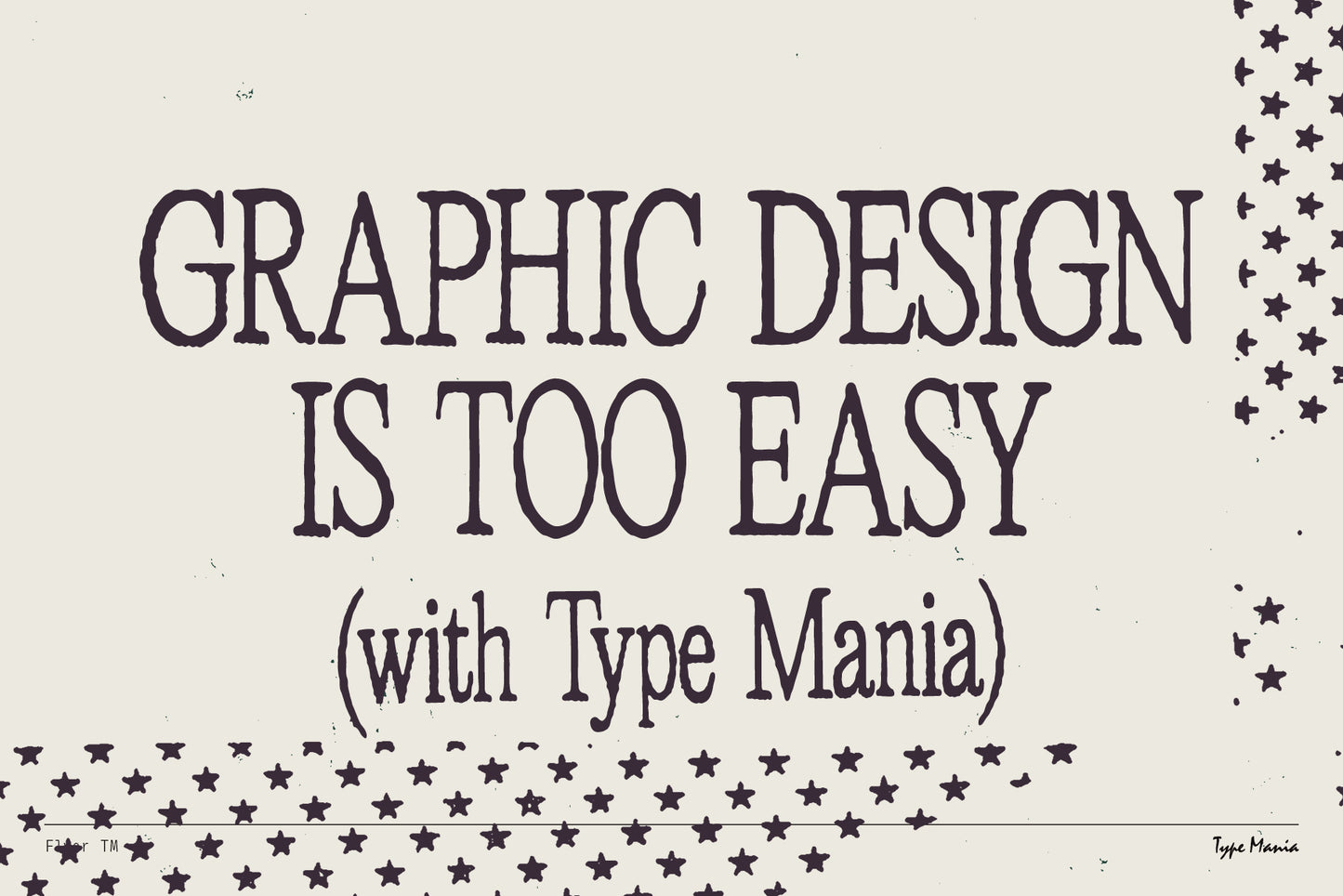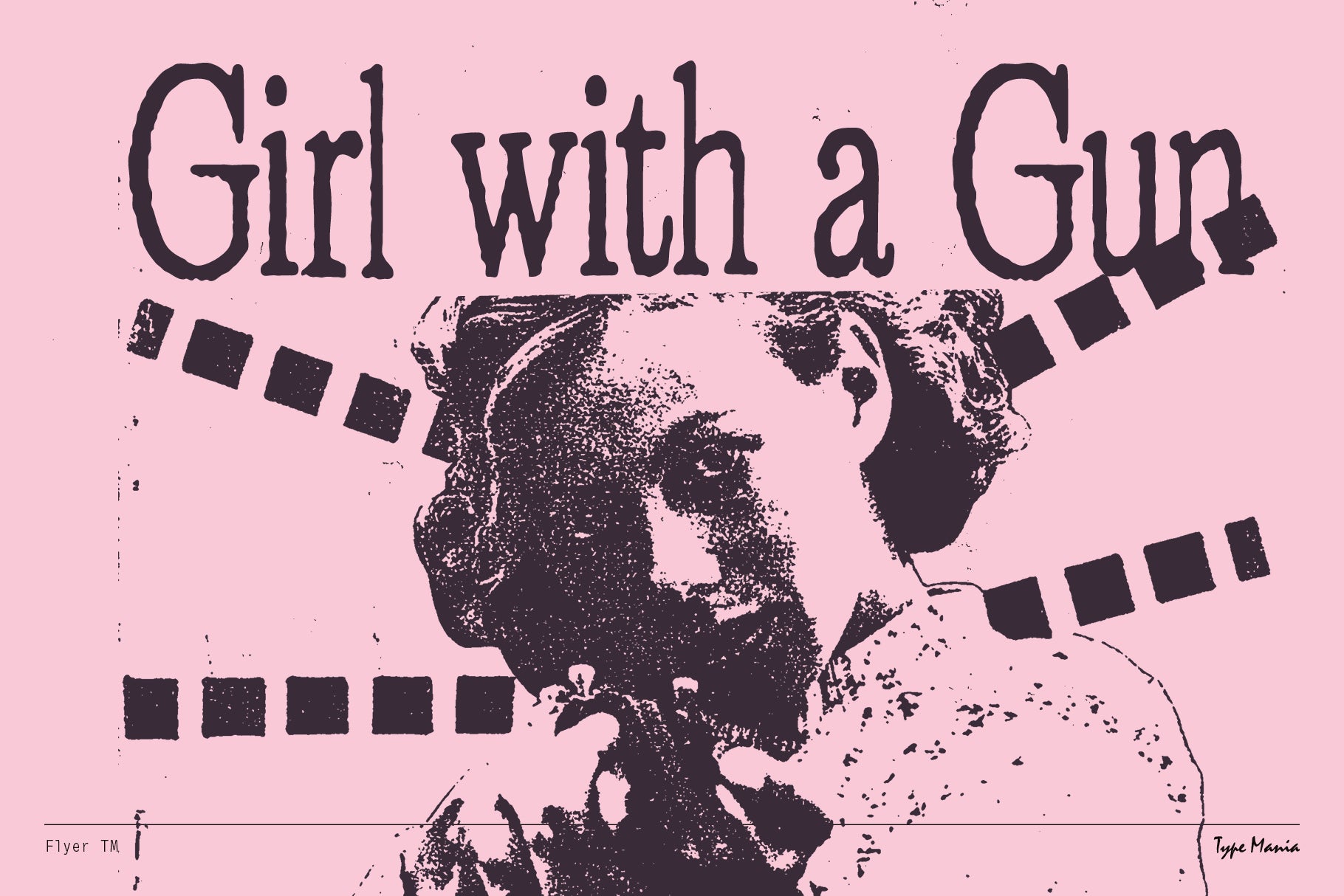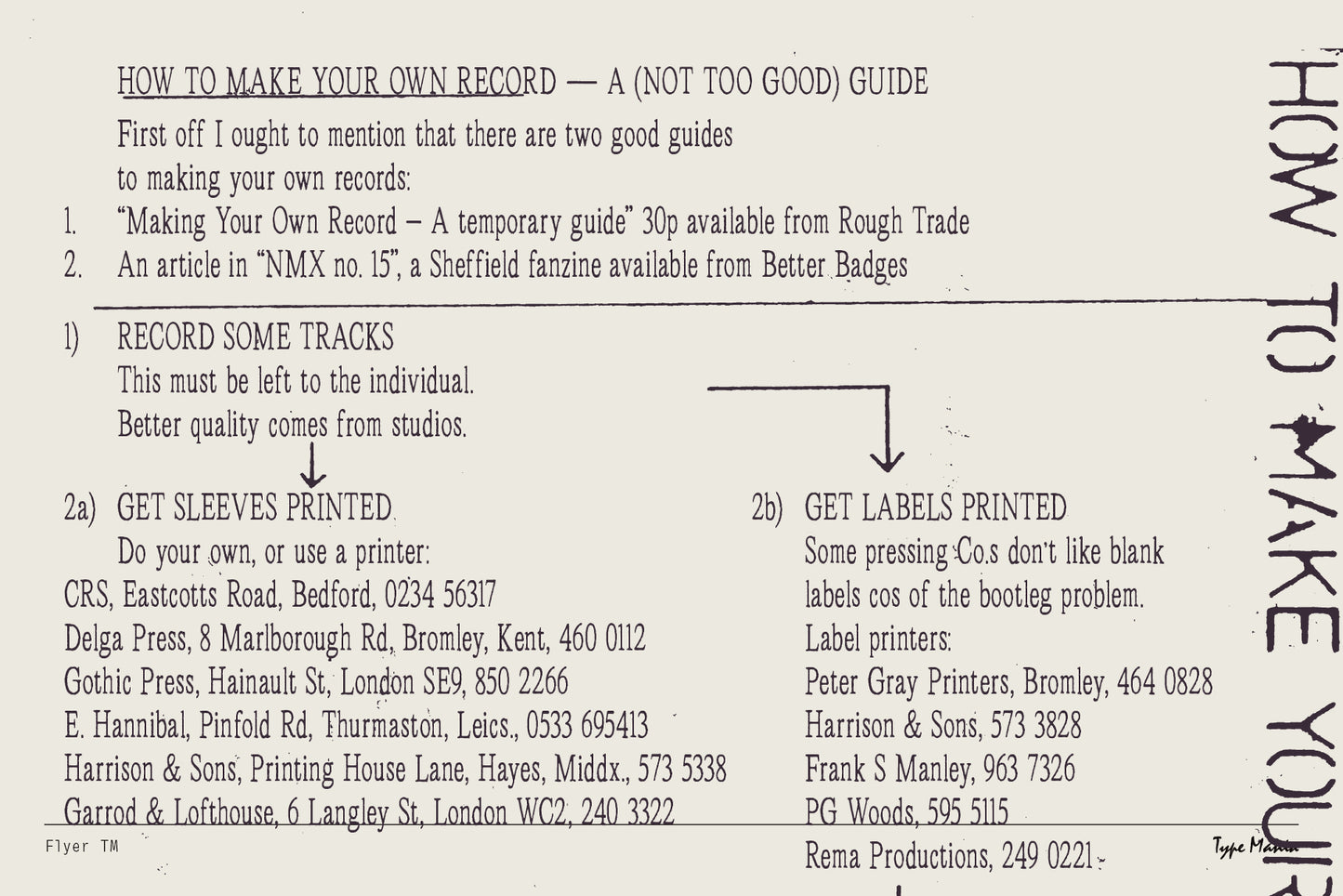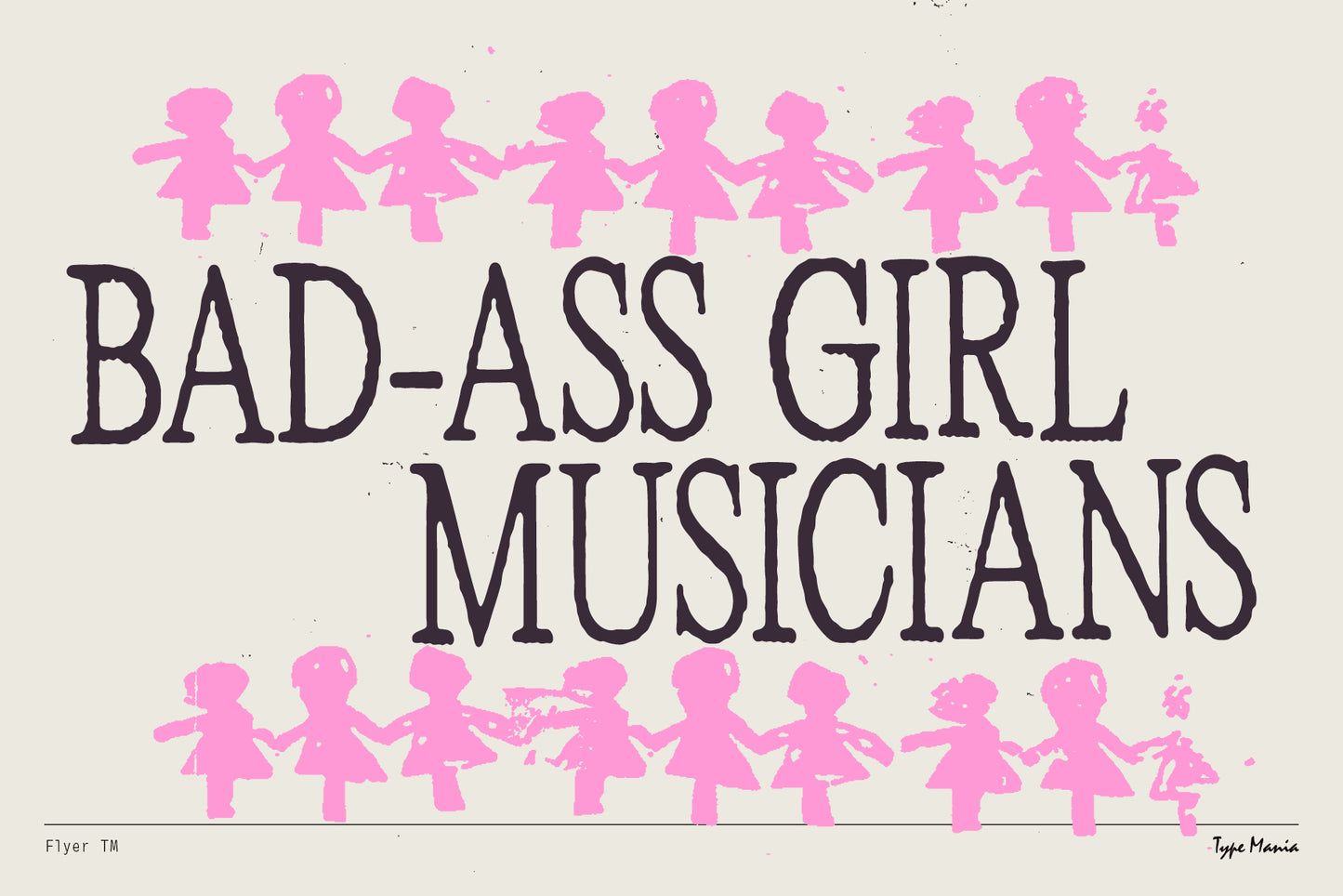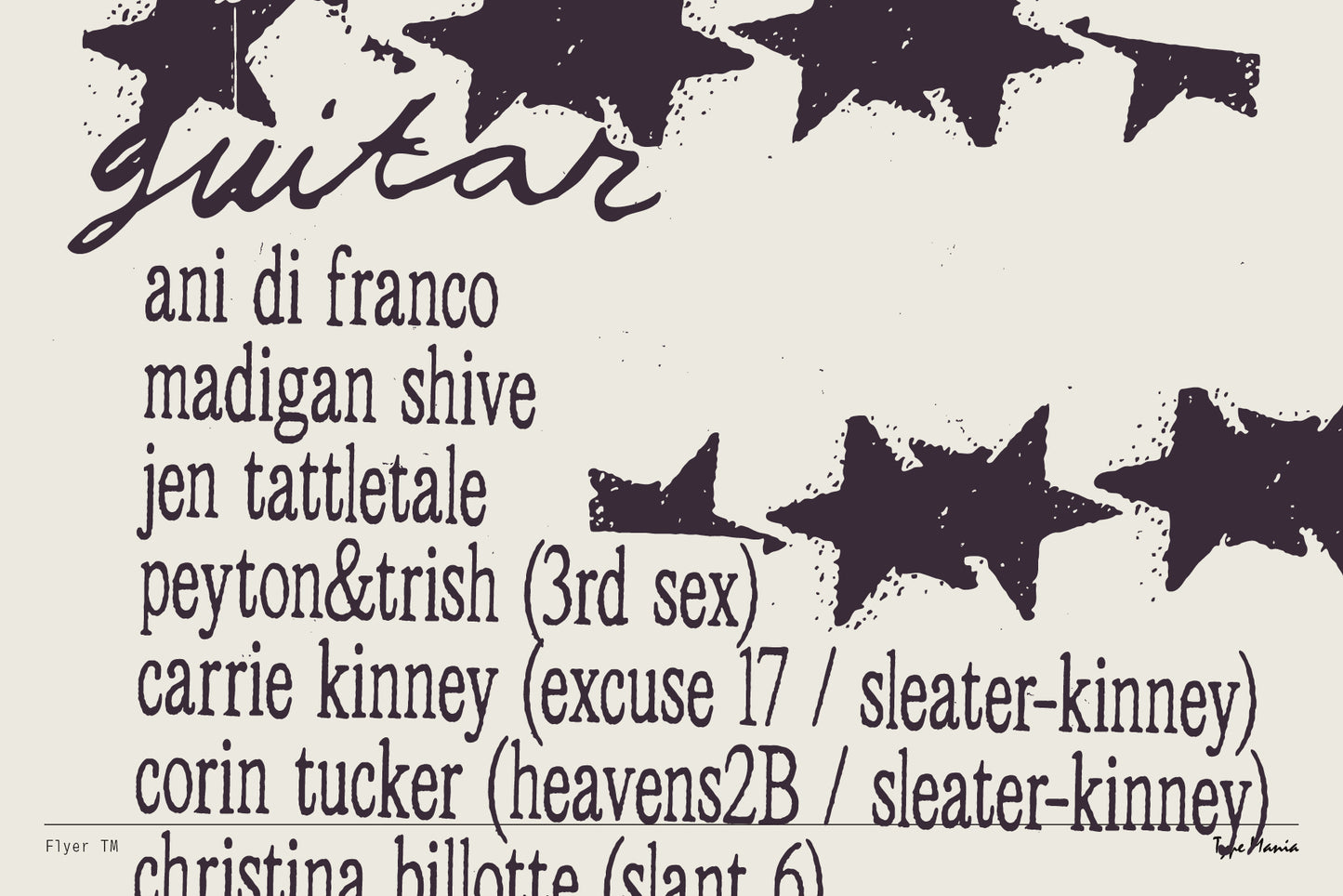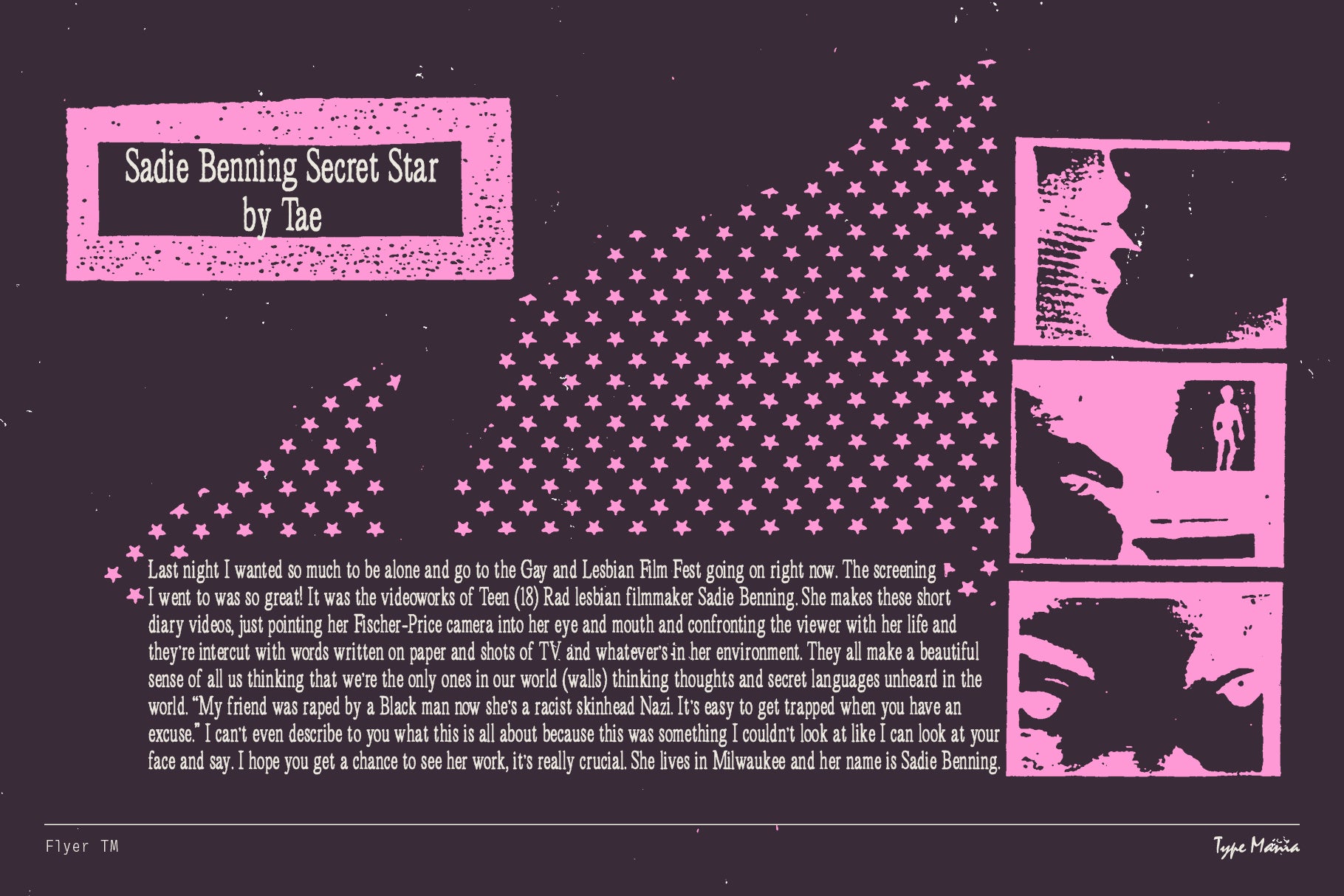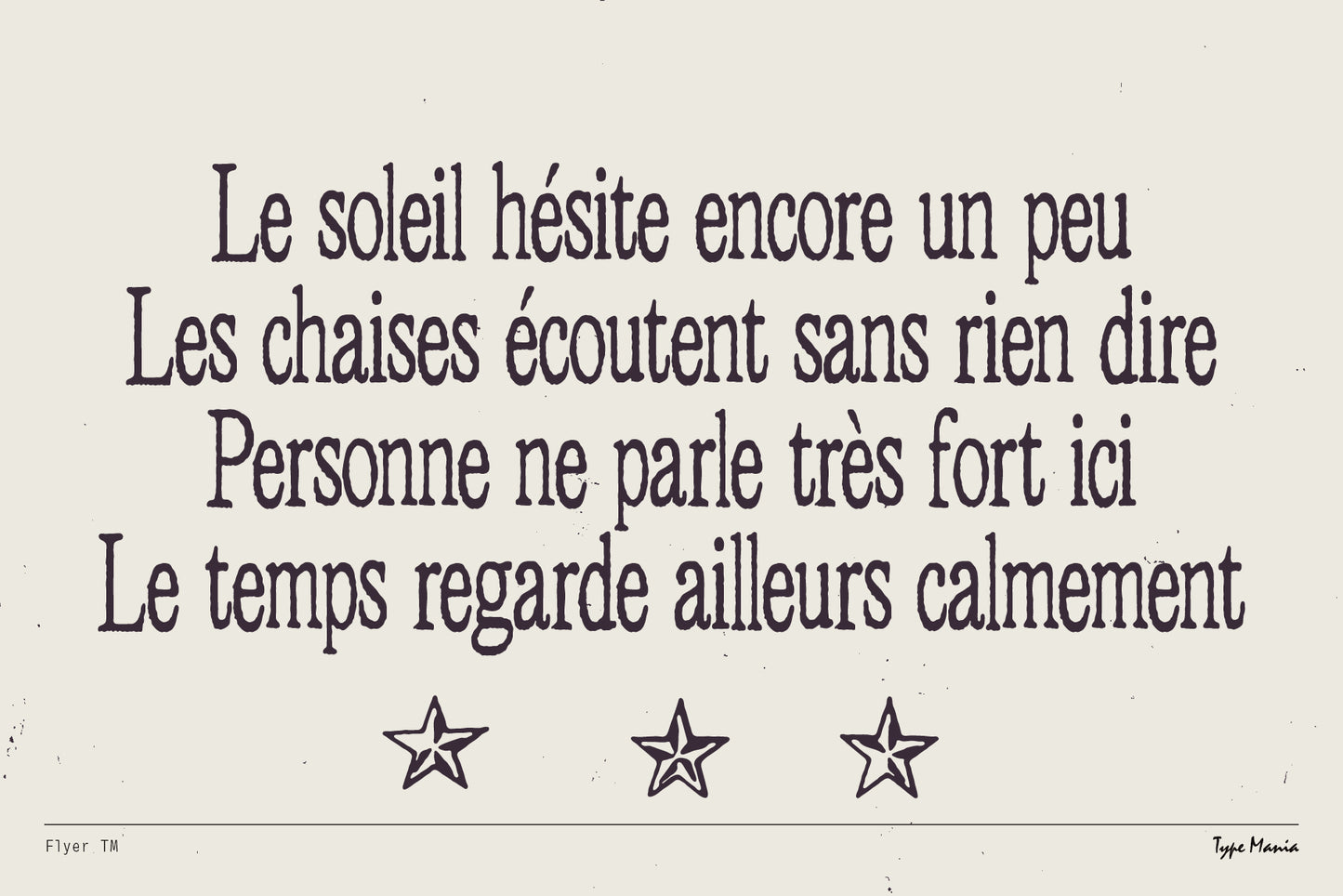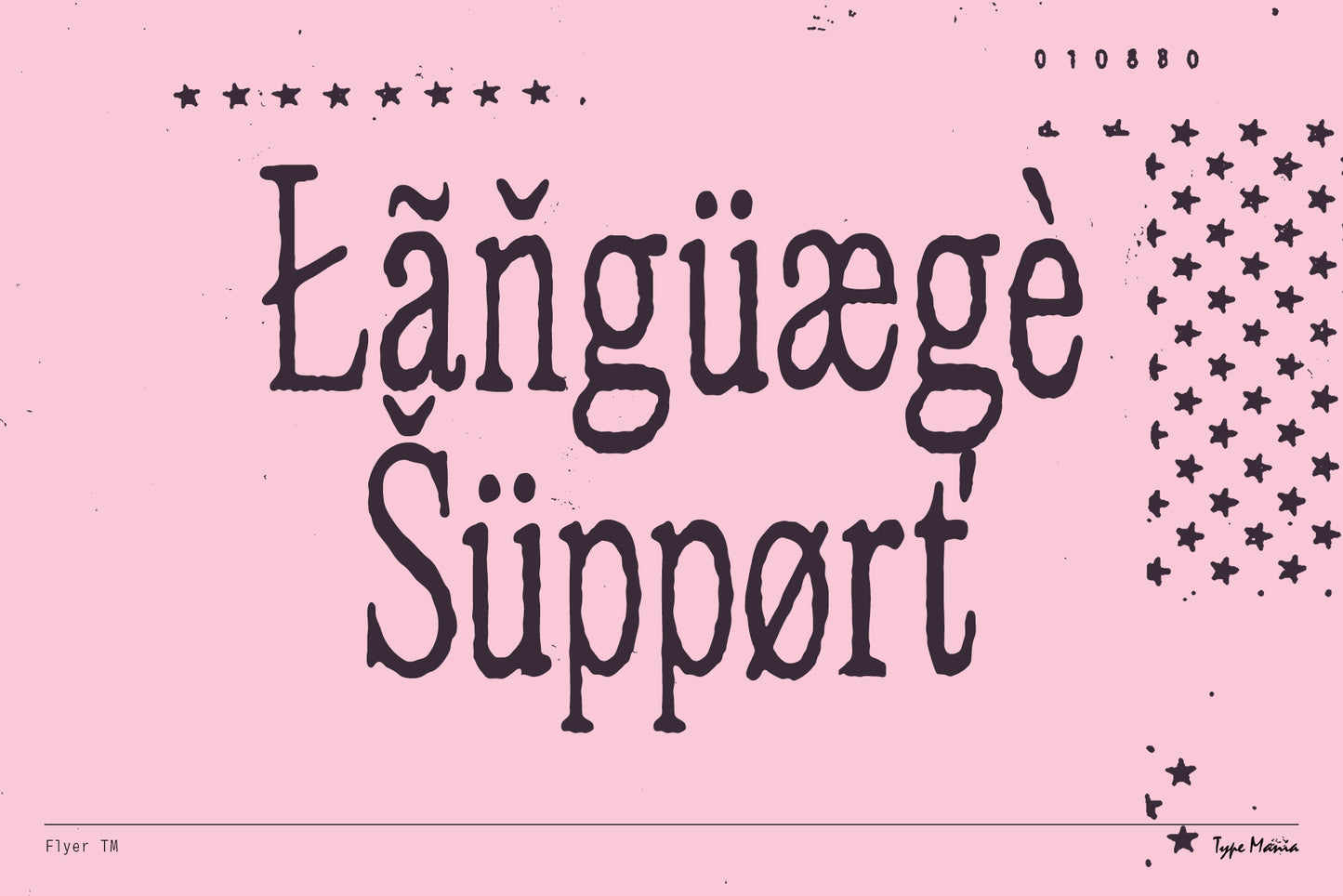
Flyer TM
With its printed-by-hand feels, Flyer TM nods to the DIY spirit of 90s fan zines. Perfect for editorial, posters, book covers, flyers – wherever u need that human-forward vibe 🖨️